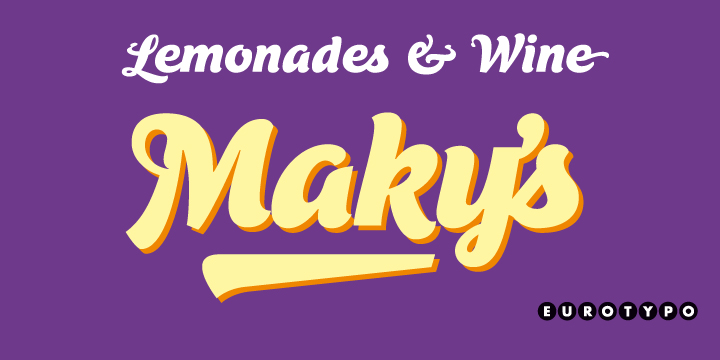
Zalea script is an expressive and dynamic font. It has an appealing “punch” characteristic that gives it its charm and strong visual impact.
Zalea was specially thought for labelling and packaging design. It has also good legibility for body text, useful in magazines and web pages. We recommended it for headlines, logos or where a friendly script is needed.
Zalea font includes a full international character compliment, alternate characters, swash and ligatures to allow flawless typesetting in OpenType format.